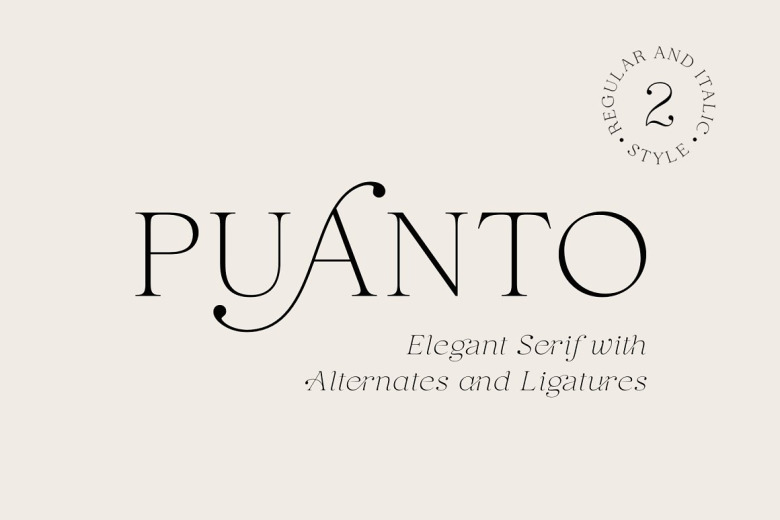
Puanto Font
Puanto is a elegant serif font, it comes in two styles, regular and true Italic. This font has a lightweight and excellent italics. I imagine it in your logotypes, branding, arrangement of wedding invitations, writing business cards, packaging, titles and so much more! Very simple to read, recognizable.
All alternates and ligatures are included in the Uppercase and Lowercase kit. With alternatives, your project will look more elegant and unique, and the italicized style will add dynamism to your design, including alternates and ligatures.
Puanto Serif Font